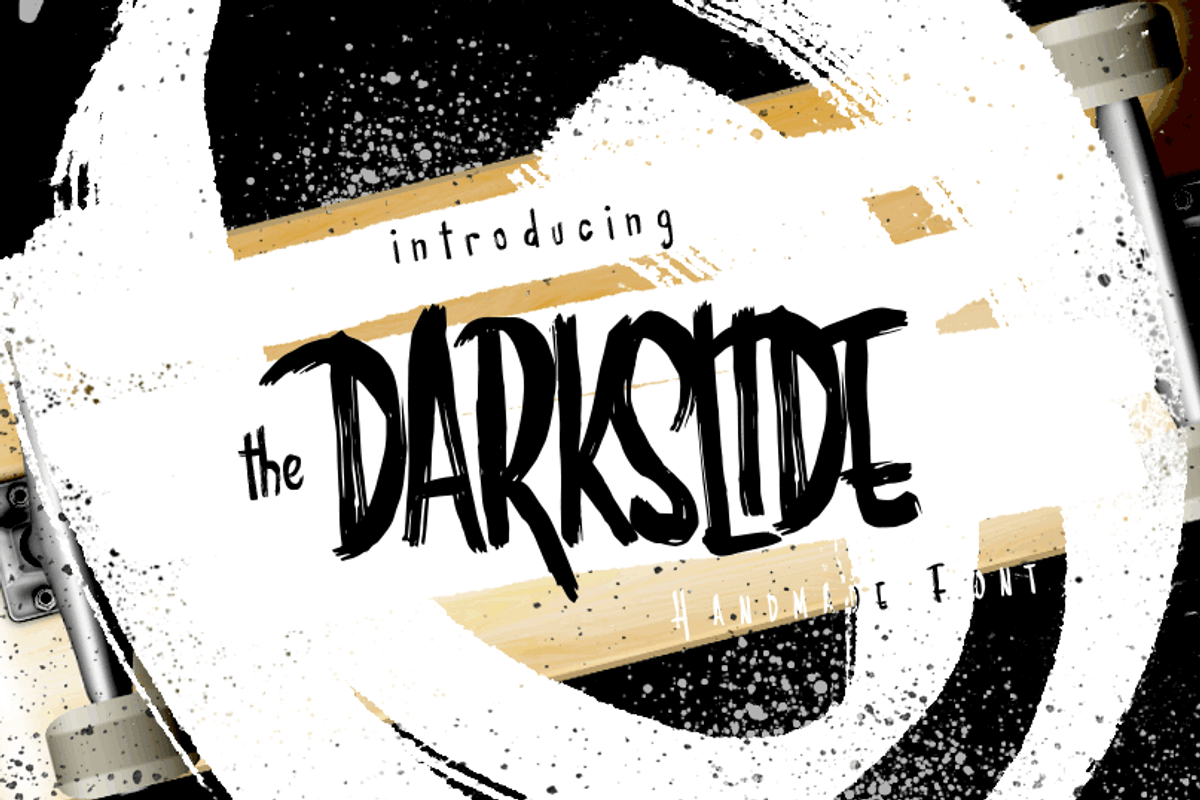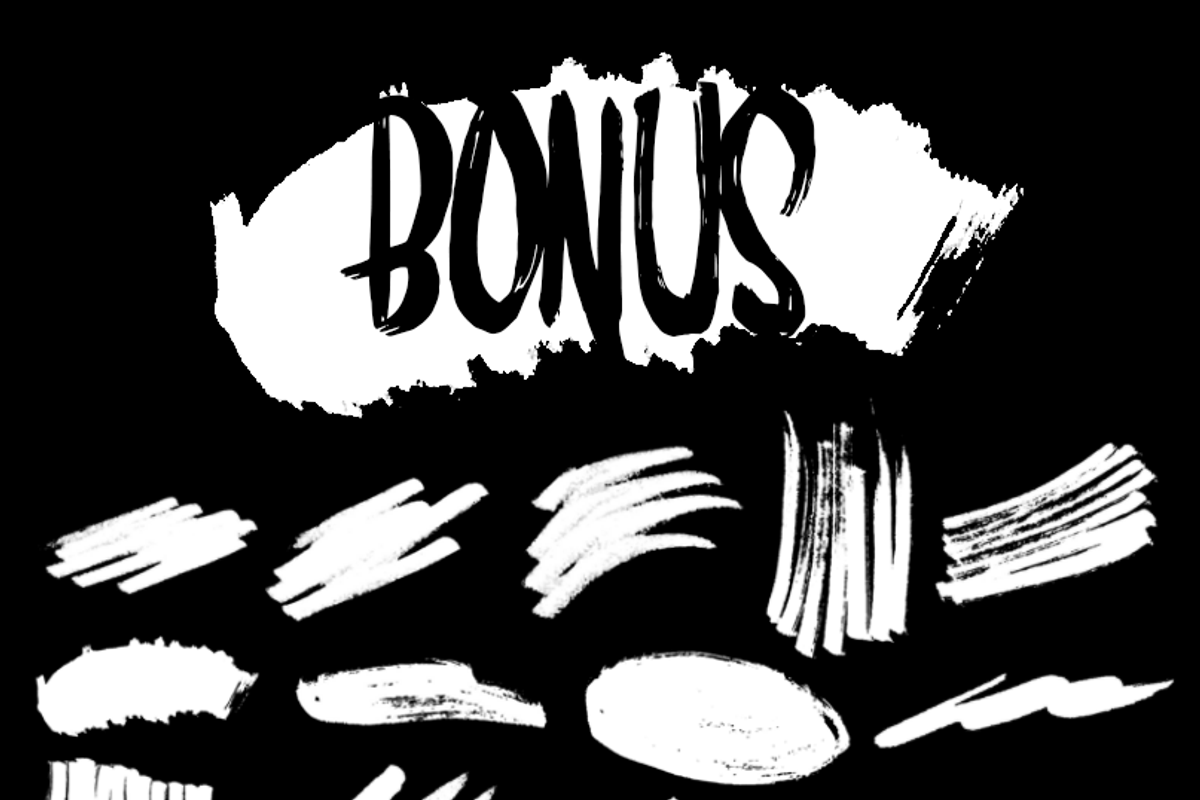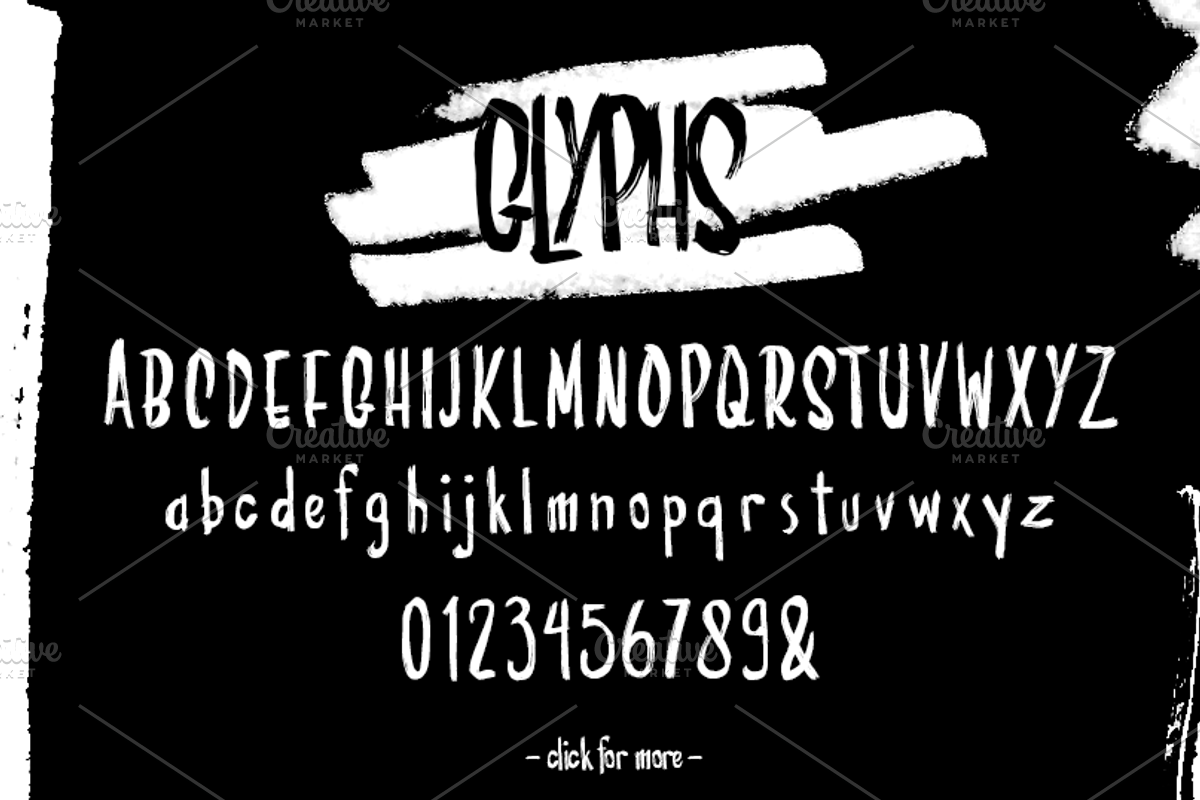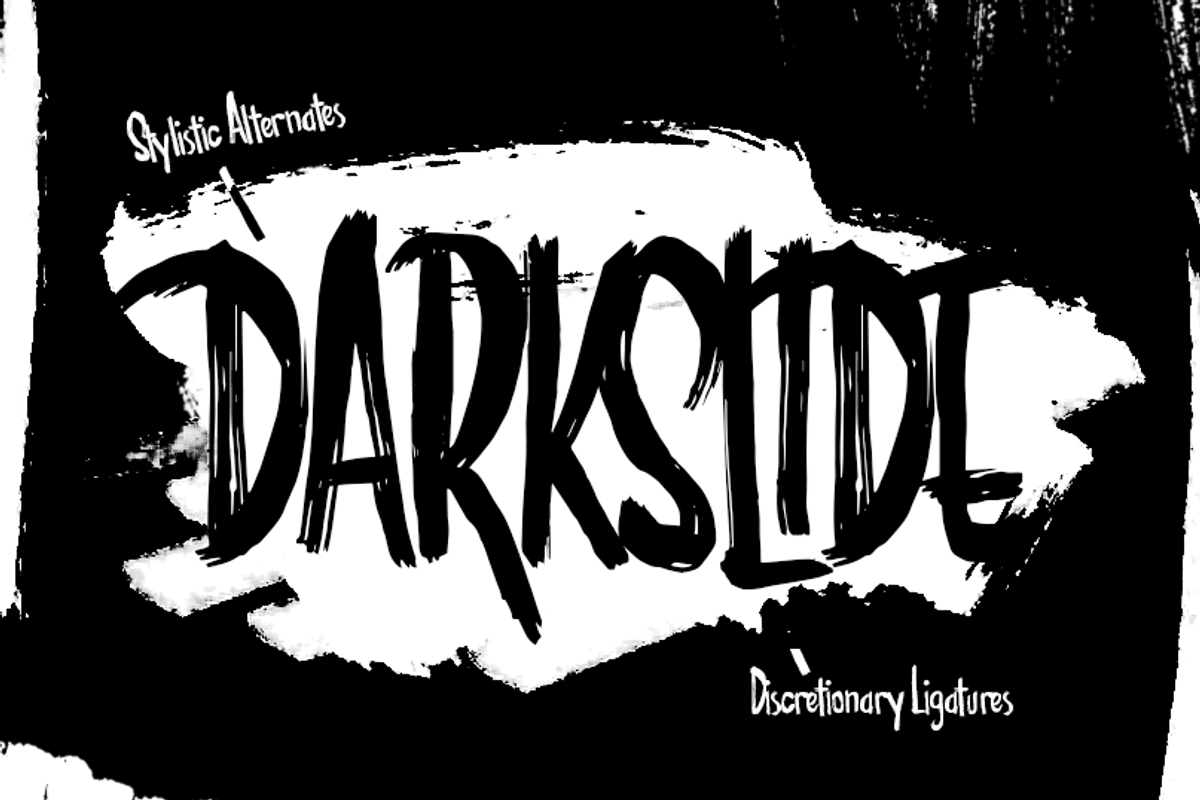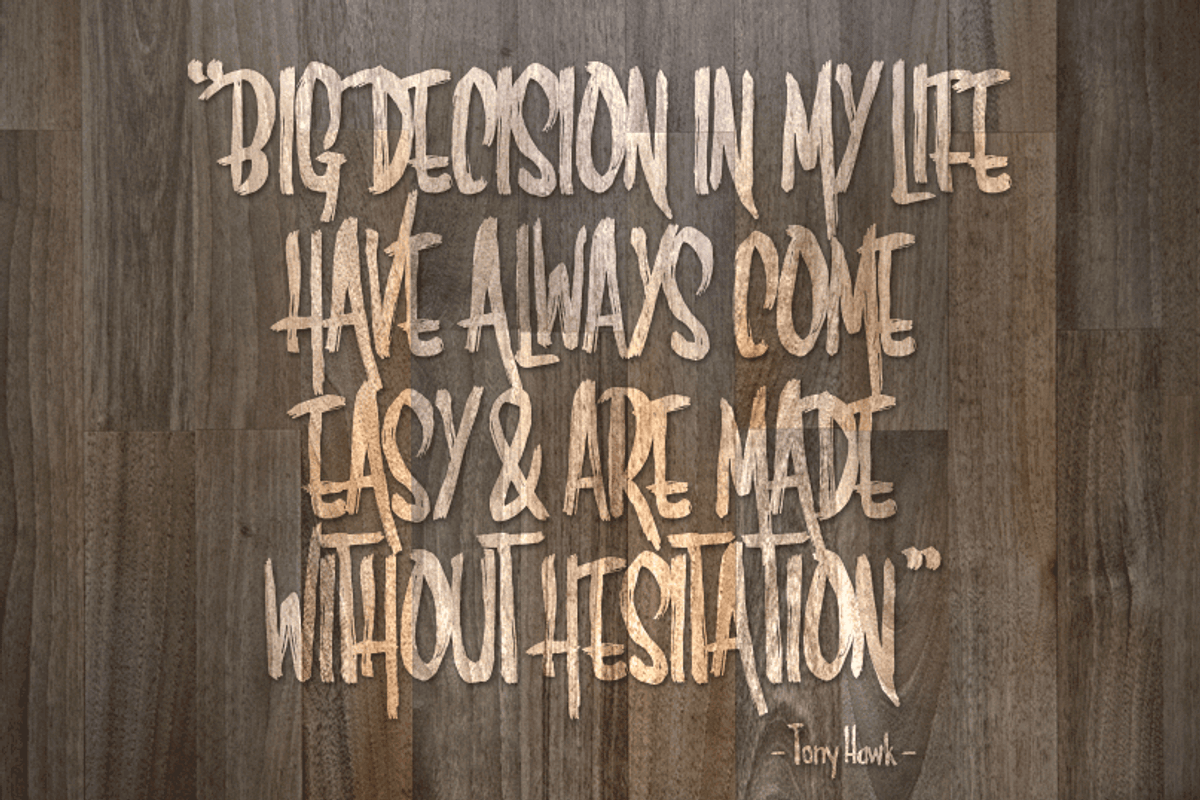
DarkSlide Font
DarkSlide Font by Arkara is a font selected for branding, posters, packaging, typography.
- Discretionary Ligatures
Why DarkSlide Font is worth a look
DarkSlide Font by Arkara fits naturally into Branding, posters, packaging, typography.